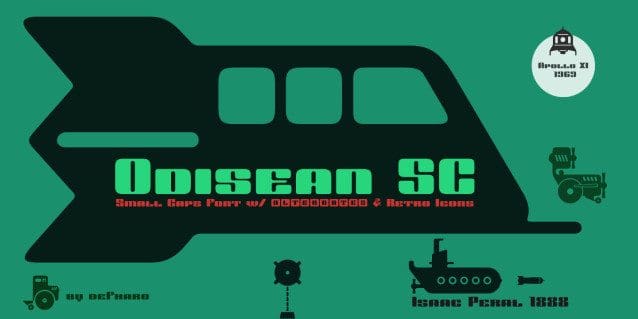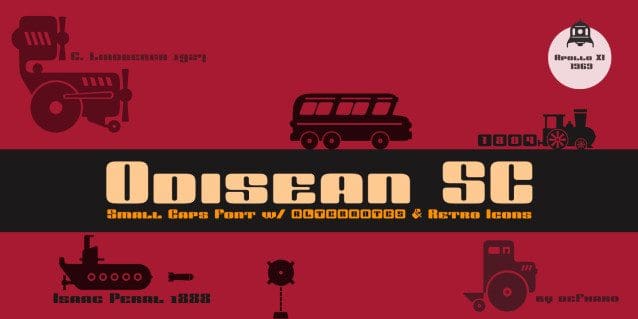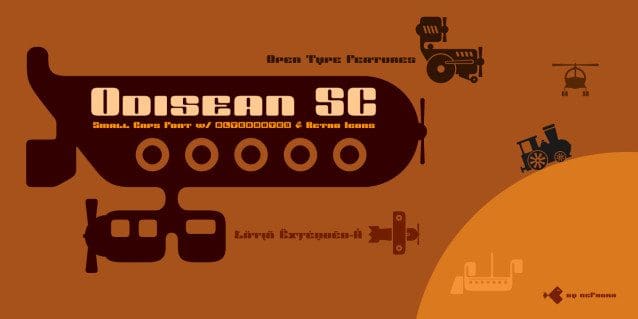
Odisean Small Caps Font
Odisean Small Caps Font is designed for large sizes with retro style, including alternative lettering and retro transportation icons.
– Odisean Small Caps bring elegance and versatility to your designs with their small capital letters.